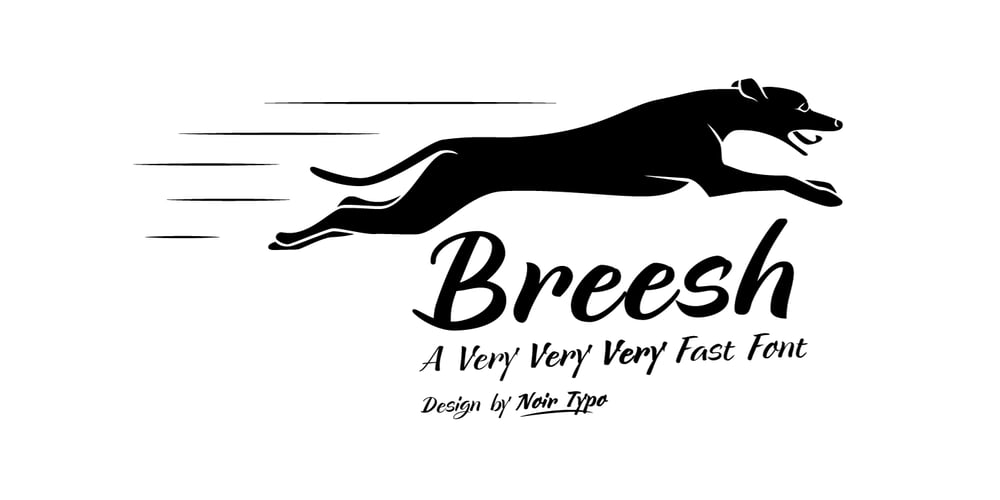
Breesh Font Family was designed by Olivier Gardera and published by Noir Typo. Breesh contains 3 styles and family package options. Breesh font is a dancing handwriting, quickly trace with a pointed brush. The inspiration come from both asian calligraphy, italic and copperplate alphabets.